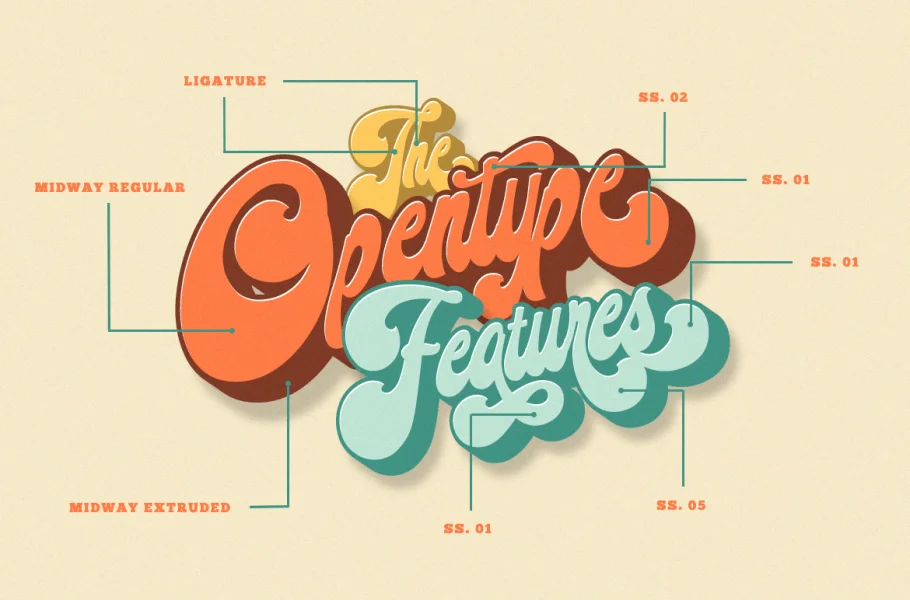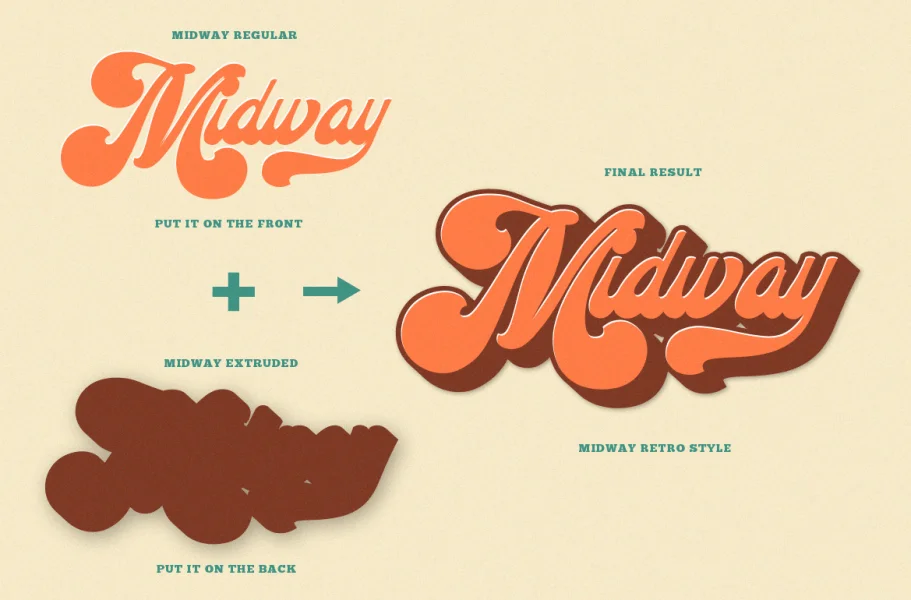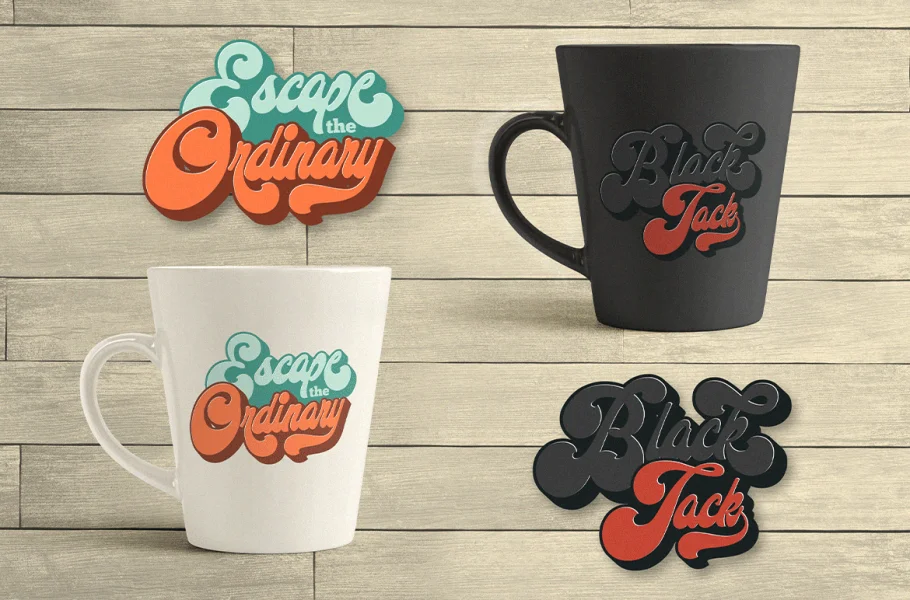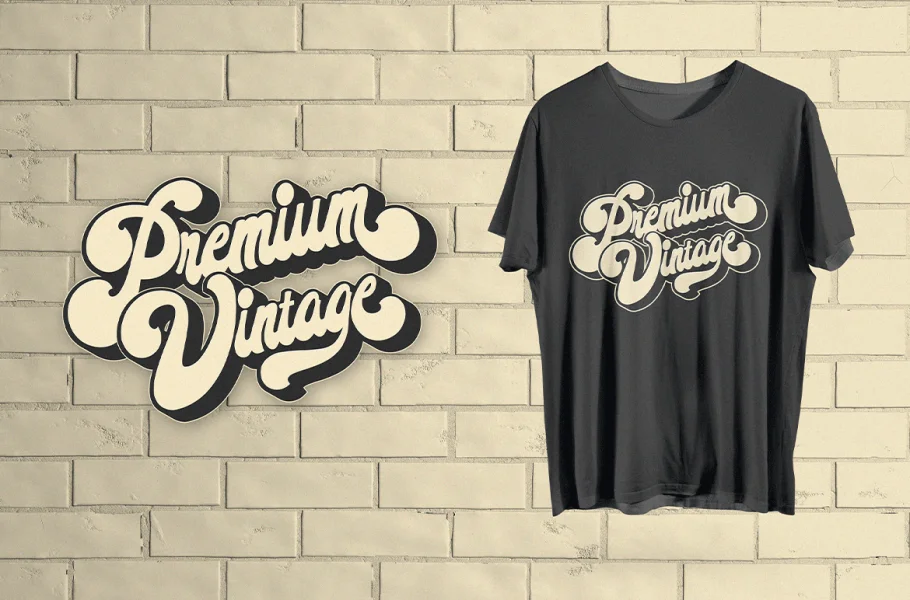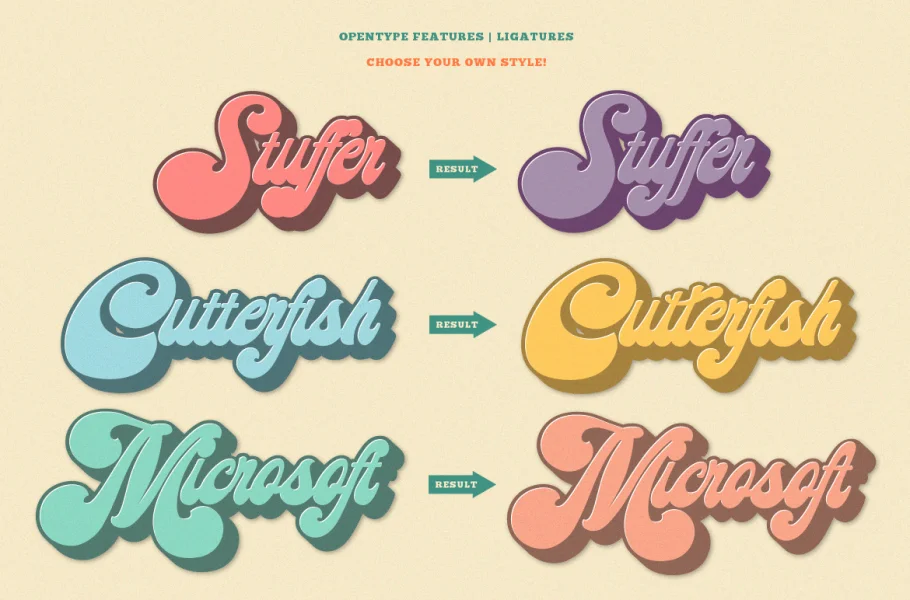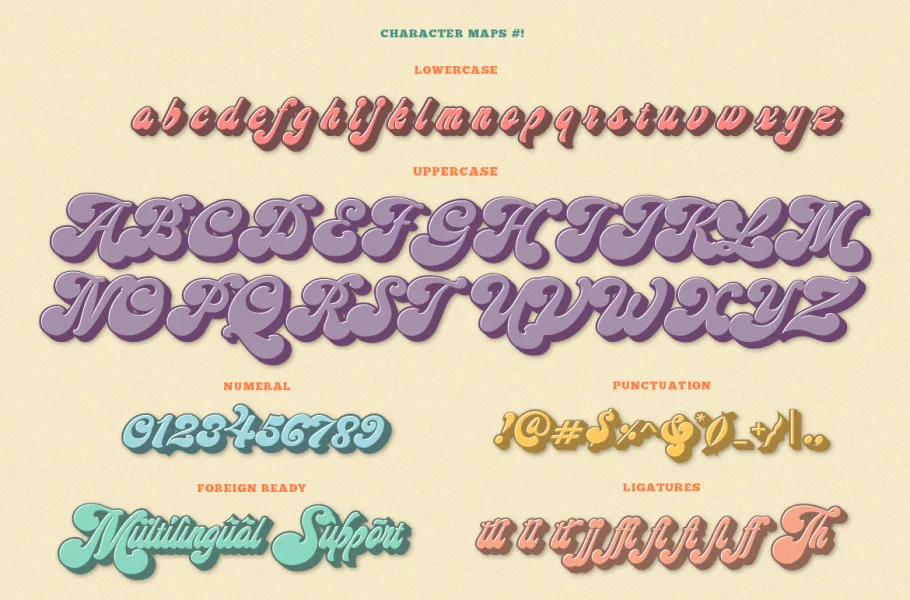
Midway is our another bold script typeface. Use this typeface and you will make a retro design with ease! Combined your design with dozens of stylistic alternates and elegant swashes which is included in this typeface, this retro typeface is really perfect for logo design, t-shirt, vintage and retro badge, vintage quotes, branding, packaging, etc.
Midway features:
A full set of upper & lowercase characters
Numbers & punctuation
Multilingual language support
PUA Encoded Characters
+320 Glyph
Up to 80 Stylistic Alternates with Swashes and Ligatures!
OpenType Features